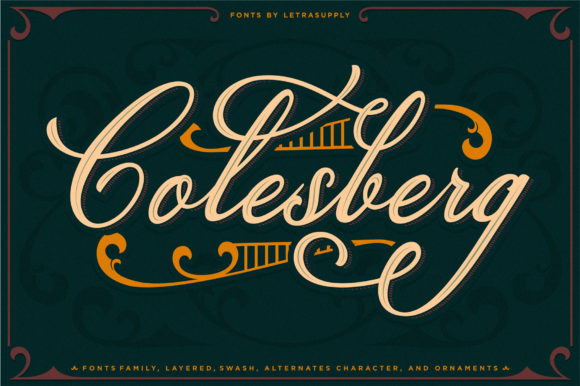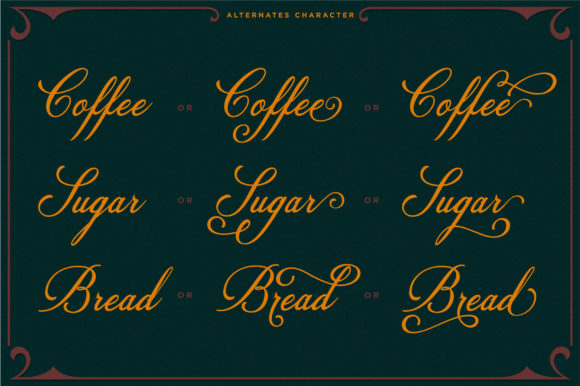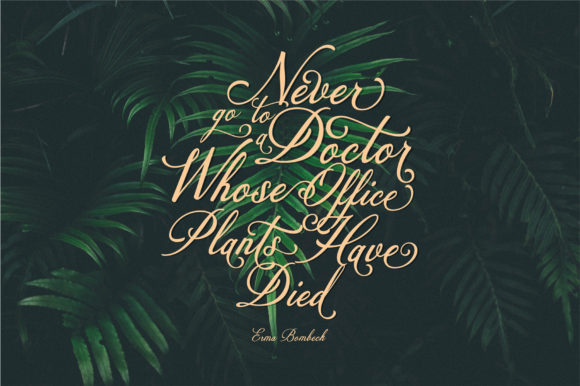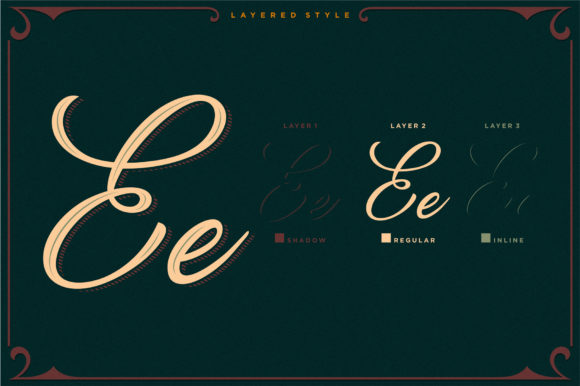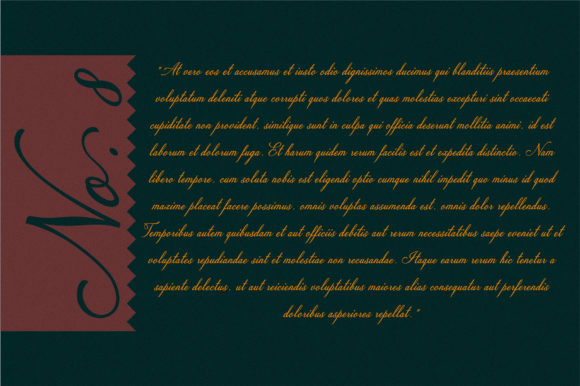
Colesberg Font
Colesberg delivers an incredibly bold and beautiful vintage script featuring gorgeous swashes. Use it to add a layer of sophistication to any design project!